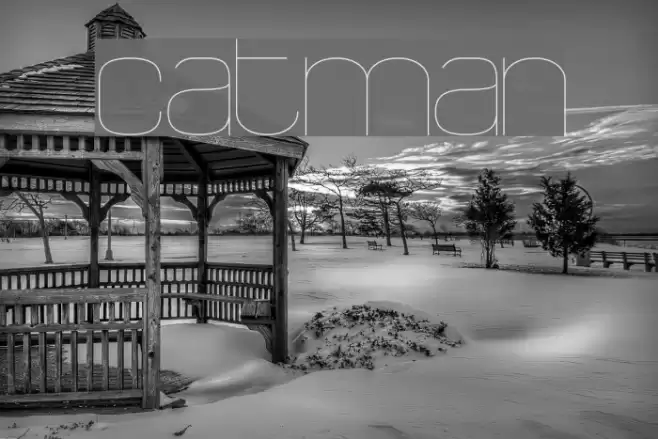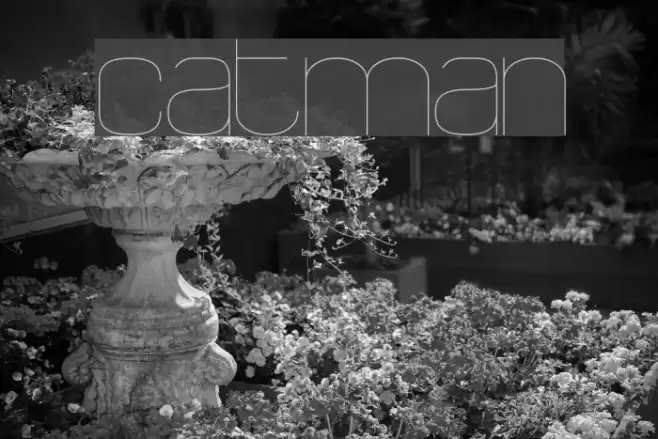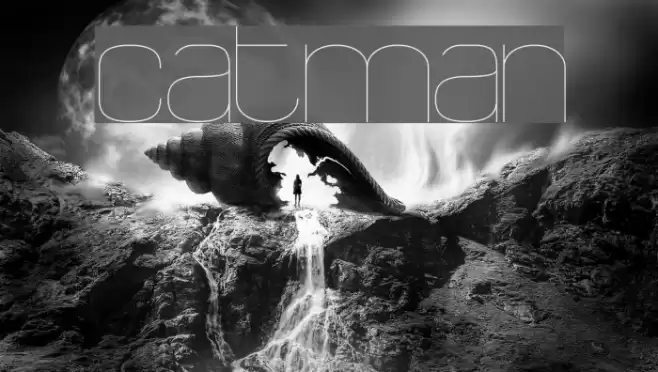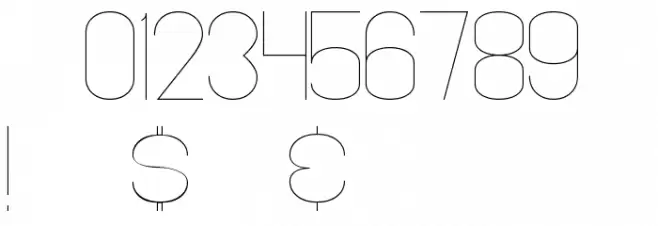
catman Font
catman Description
This font features a sleek, modern design with thin, elongated letterforms that convey a sense of elegance and minimalism. The characters are constructed with smooth curves and straight lines, creating a harmonious balance between geometric precision and fluidity. The uppercase and lowercase letters maintain a consistent style, with a uniform height that enhances readability. The numerals are designed with the same thin strokes, ensuring a cohesive look across all characters. The special characters, such as the dollar sign and ampersand, are crafted with the same attention to detail, making them visually compatible with the rest of the font. Overall, this font exudes a contemporary aesthetic that is both stylish and versatile.
A sleek, modern font with thin, elongated letterforms and a minimalist design from Uncategorized fonts.